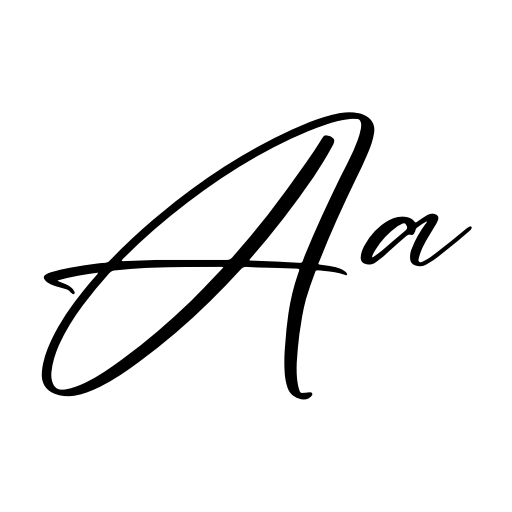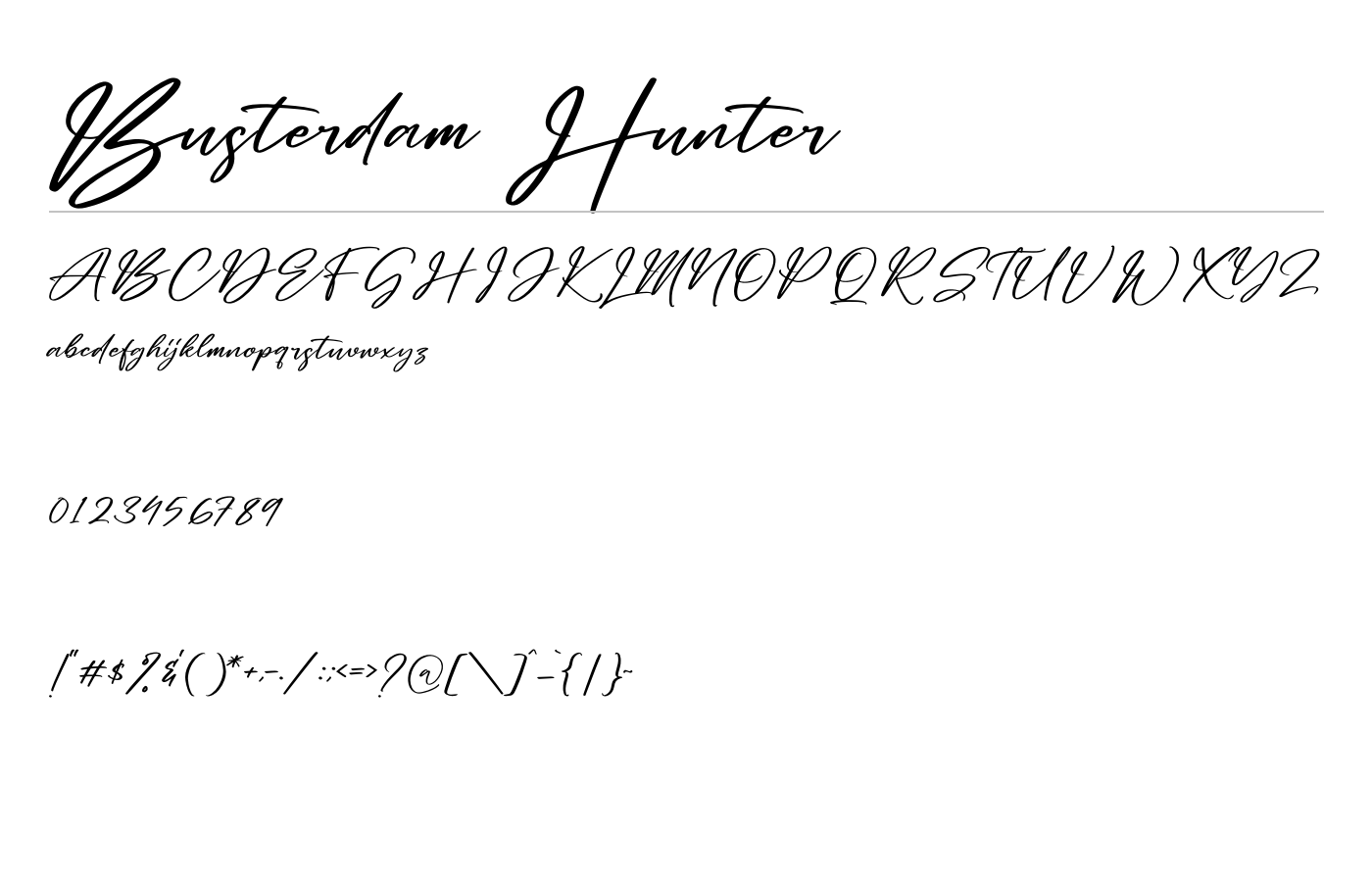
Busterdam Hunter is an elegant, modern script font characterized by its fluid, handwritten style with smooth curves and varied stroke thickness. Its delicate, slightly condensed letterforms convey sophistication and grace, making it ideal for luxury branding, invitations, and stylish editorial uses. This font’s refined personality works beautifully where a personal yet polished touch is needed, such as in fashion logos or upscale packaging.
Busterdam Hunter Font
About Busterdam Hunter Font
| Font family | Busterdam Hunter Font |
| Designer | Nanang Jamaludin |